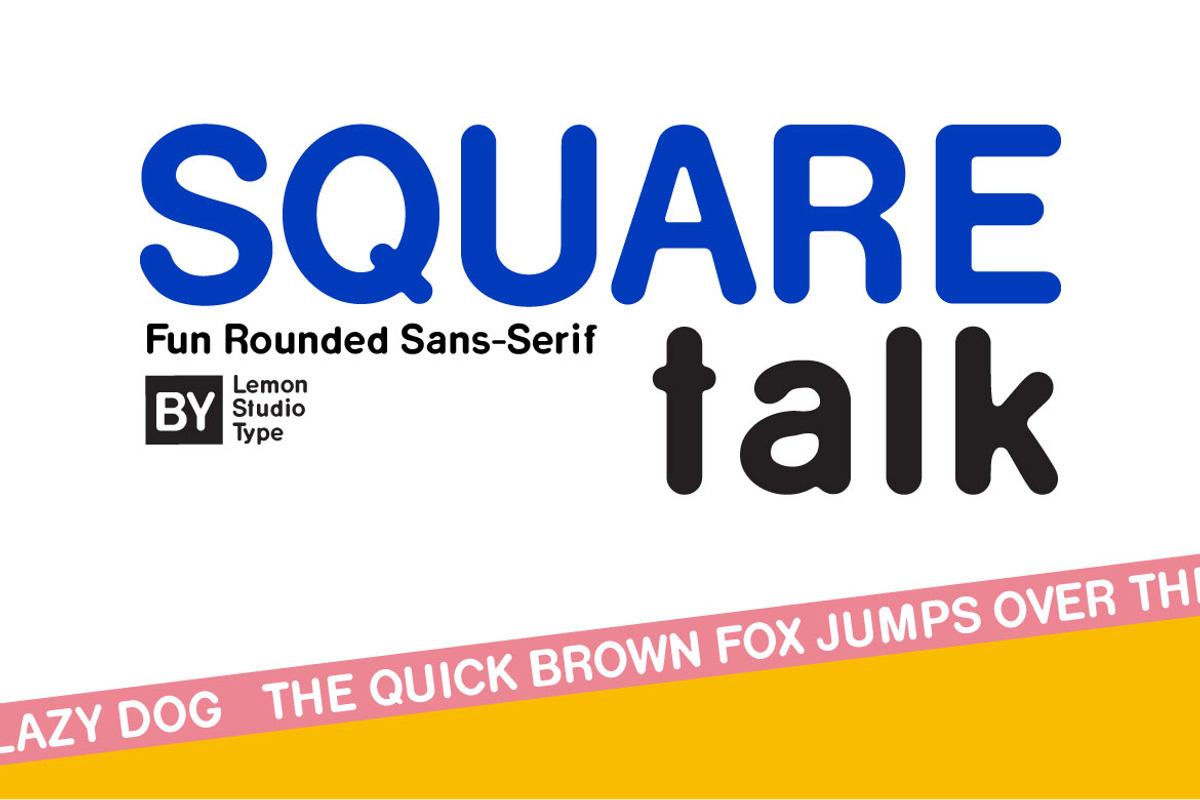
Square Talk - Rounded San Serif Free Download
Square Talk - Rounded Sans Serif Font Free Download
The Square Talk - Rounded Sans Serif Font Free Download is a modern and clean typeface with rounded edges, perfect for creating sleek, friendly, and professional designs. Ideal for logos, websites, branding, packaging, and social media graphics, this font brings a contemporary and approachable feel to your projects. Please note, for commercial use, a license must be purchased. You can download it for free for testing purposes.
With its smooth, rounded edges and geometric structure, the Square Talk - Rounded Sans Serif Font Free Download is perfect for projects that require a modern, clean look with a touch of warmth. Whether you're working on tech-related branding, user interfaces, or custom marketing materials, this font will give your designs a polished and versatile appearance.